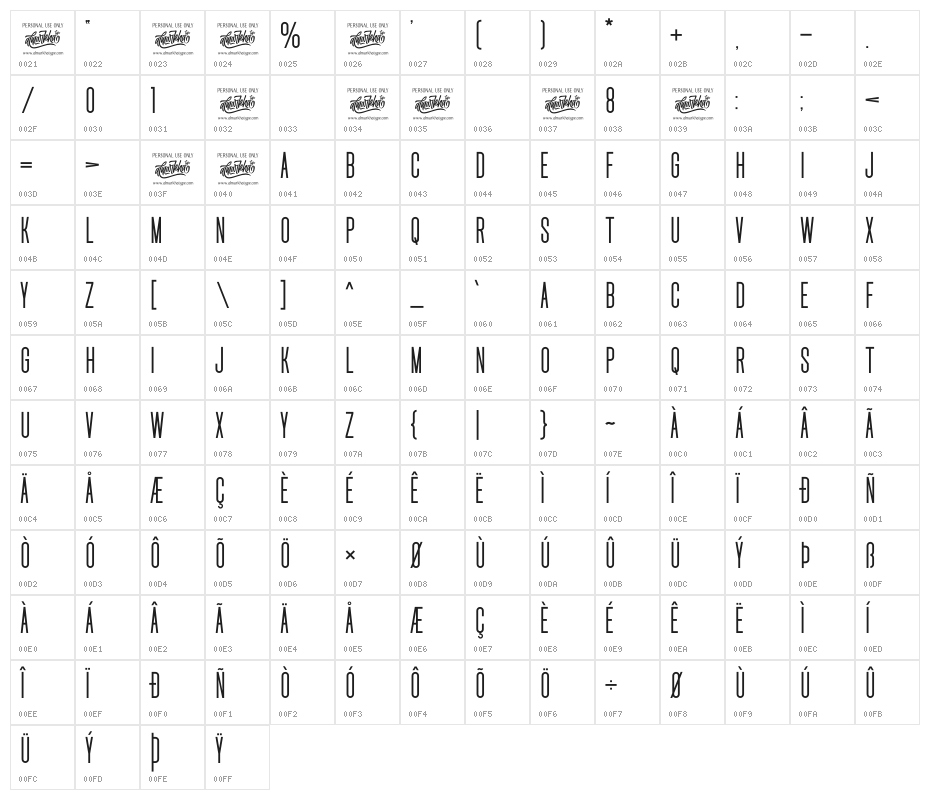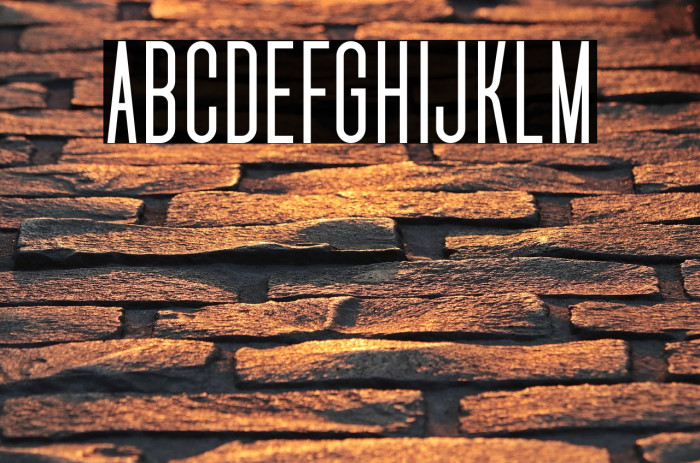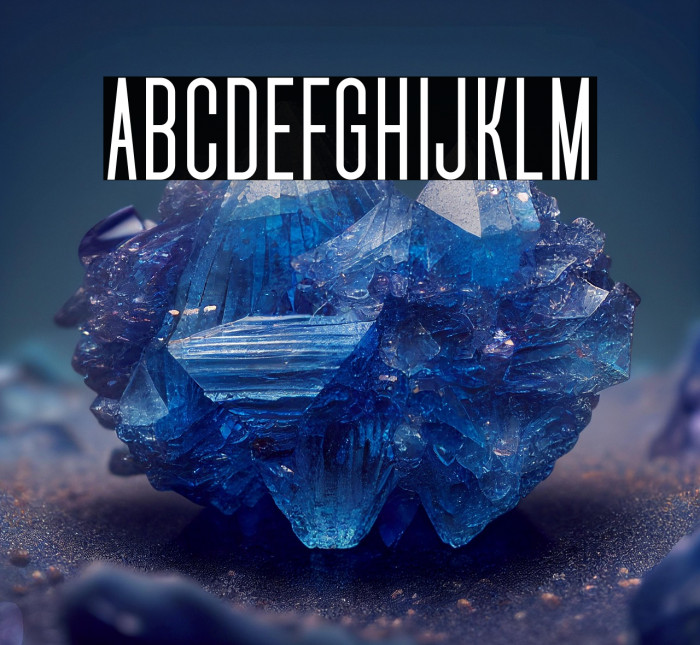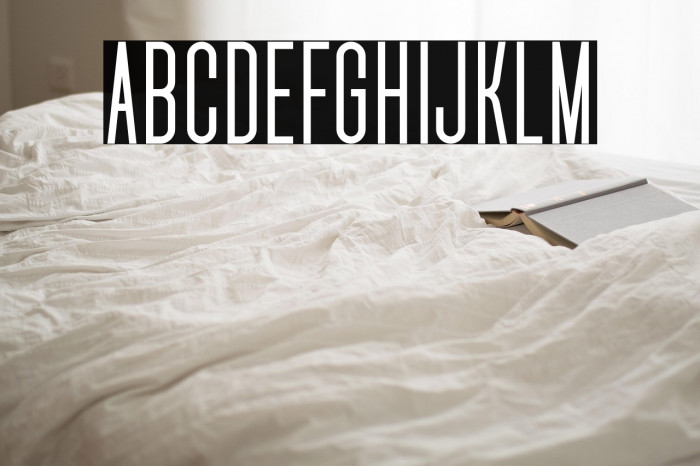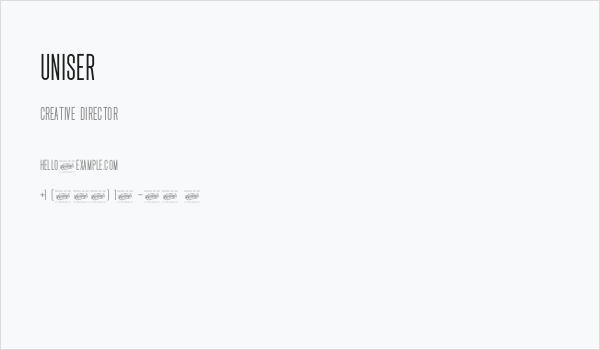
Uniser Font
Uniser Description
This font features a tall, narrow design with clean, straight lines and a modern aesthetic. The uppercase letters are elongated, giving a sense of height and elegance, while maintaining a uniform stroke width throughout. The lowercase letters mirror this style, creating a cohesive look across the alphabet. The numerals and special characters are designed with the same attention to detail, ensuring consistency in appearance. This font's sleek and contemporary style makes it suitable for a variety of design applications.
| Proposed Projects | Ideal for branding, editorial design, posters, and modern web design. |